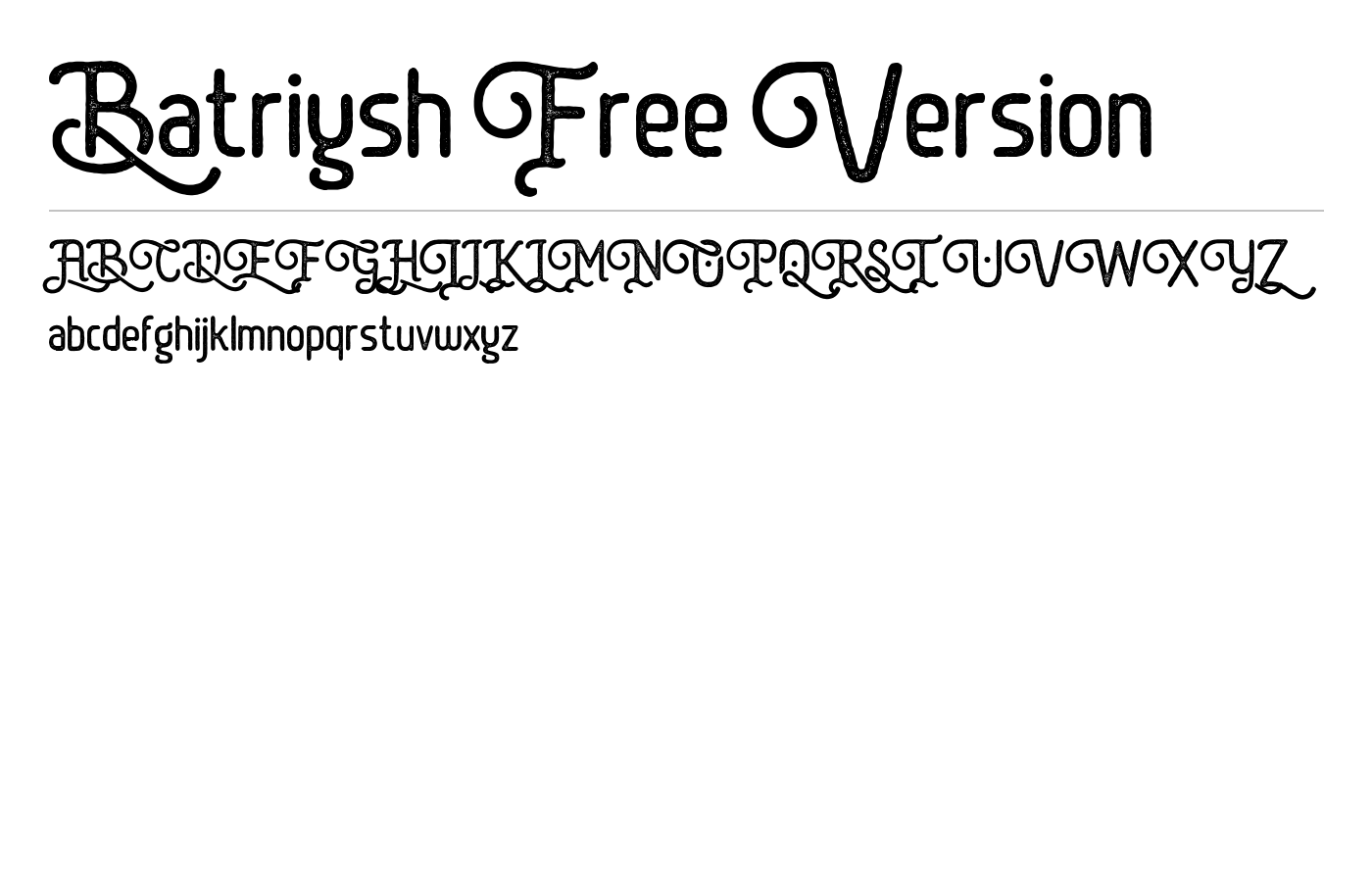
Batrıyş is a decorative serif font featuring unique swirly and ornate uppercase letters paired with a simpler, narrow lowercase set, creating an intriguing contrast between flourish and readability. Its medium weight and moderate x-height make it suitable for eye-catching headlines or logos where a touch of vintage elegance and artistic flair is desired. This font works well for branding, invitations, and creative projects that seek a whimsical yet sophisticated look.
Batriysh Font
About Batriysh Font
| Font family | Batriysh Font |
| Designer | Soti Brother |